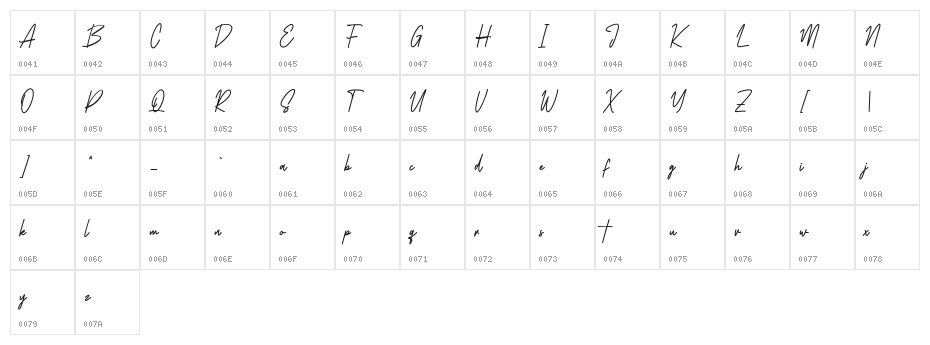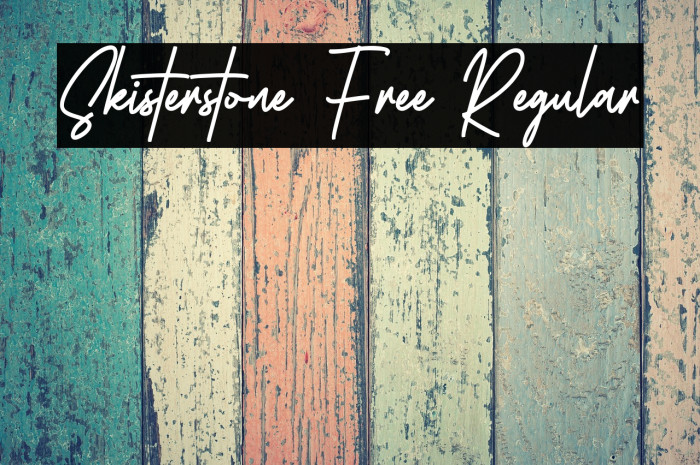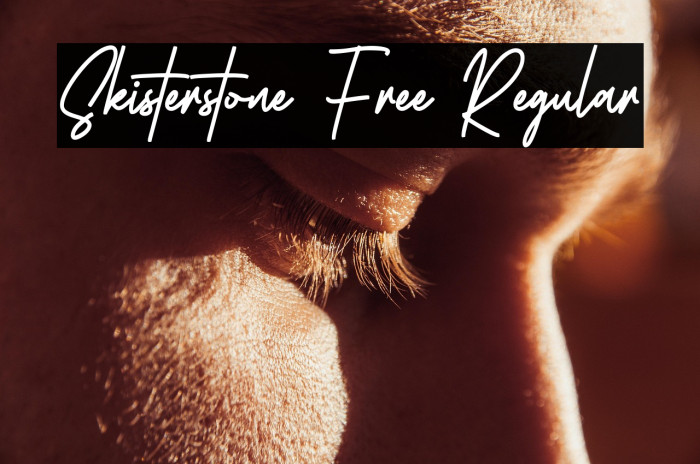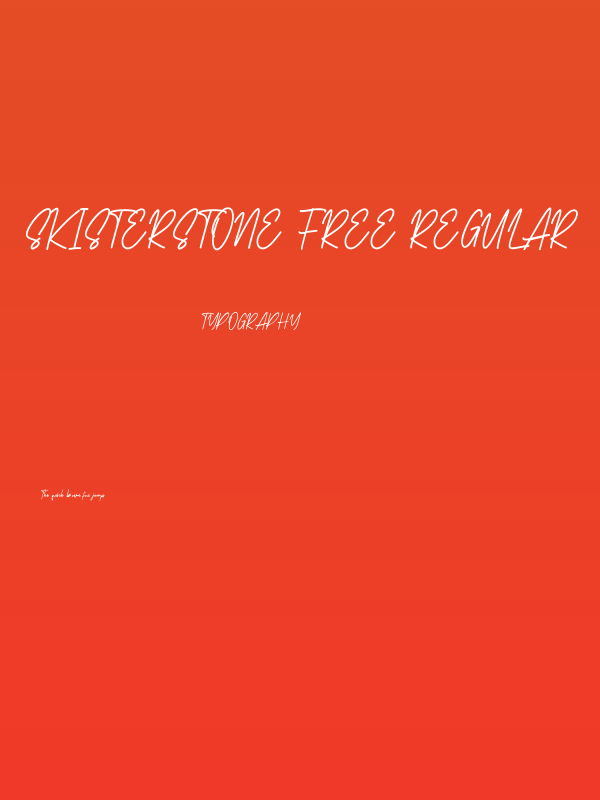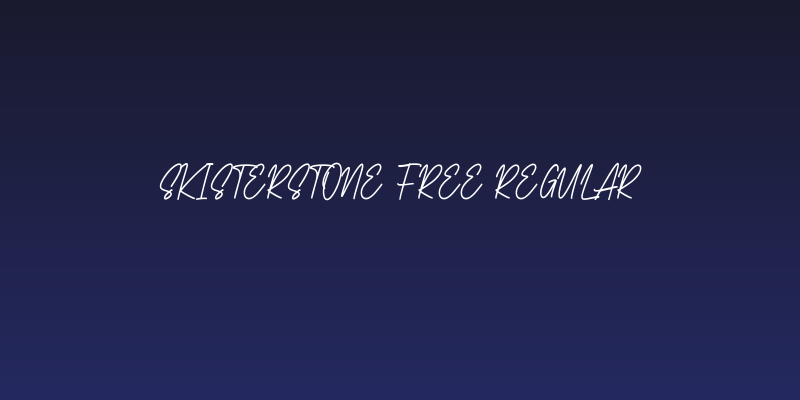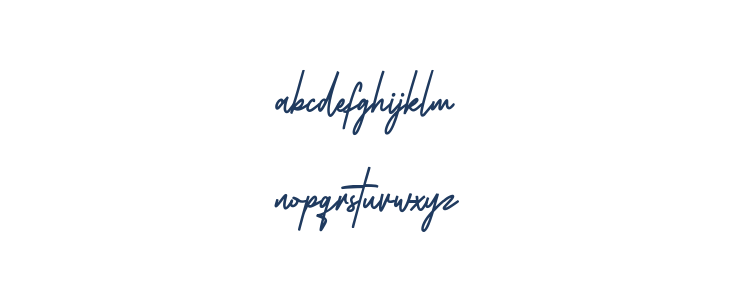
Skisterstone Free Regular Font
Skisterstone Free Regular Description
This font features a dynamic and fluid script style, characterized by its elegant, flowing lines and a handwritten aesthetic. The uppercase letters are bold and sweeping, with a sense of motion and flair, while the lowercase letters maintain a consistent, smooth flow that complements the overall design. The strokes are slightly varied in thickness, adding a touch of sophistication and enhancing readability. The font's style is both modern and classic, making it versatile for various design needs. It captures the essence of personal handwriting, offering a warm and inviting feel.
| Proposed Projects | Ideal for wedding invitations, greeting cards, branding projects, and elegant packaging designs. |